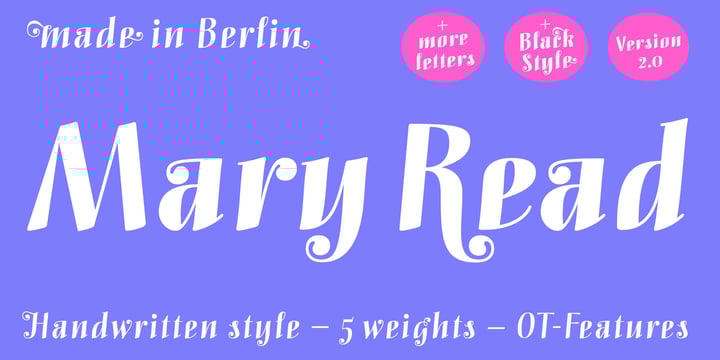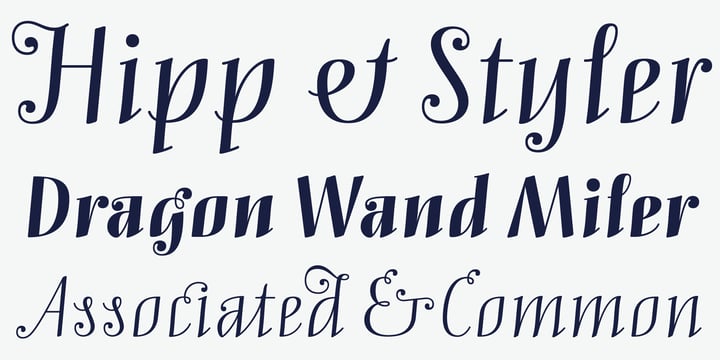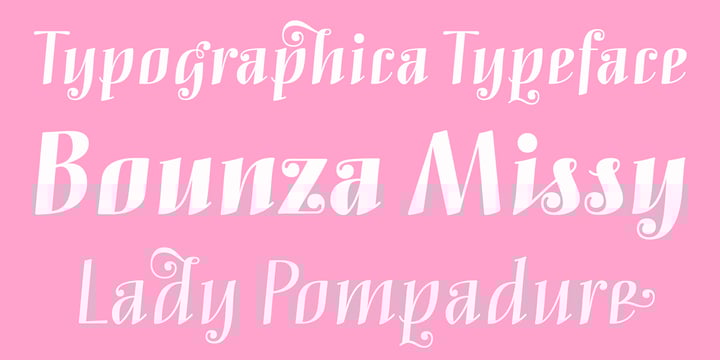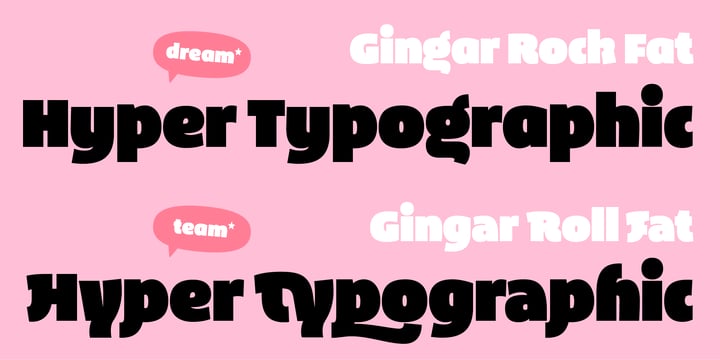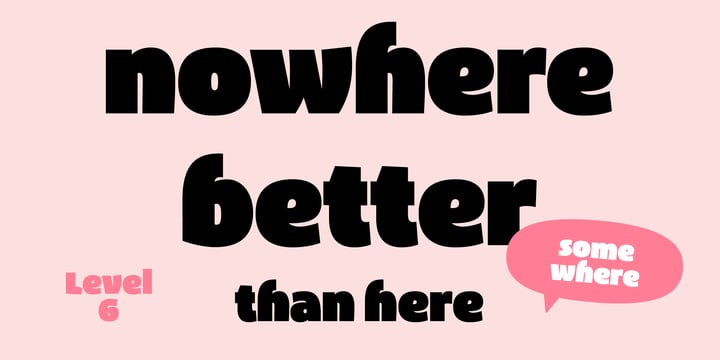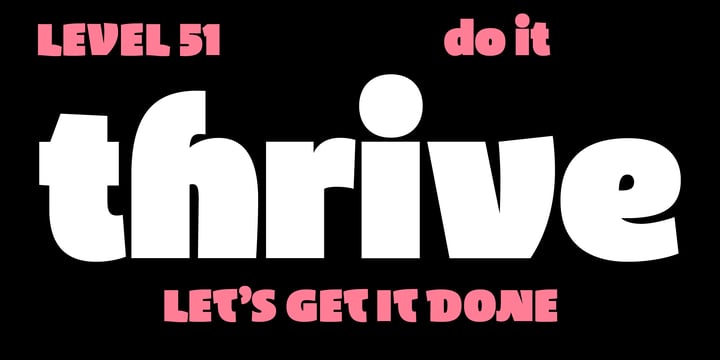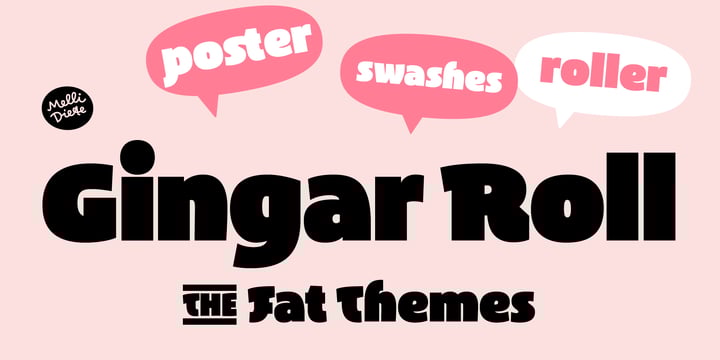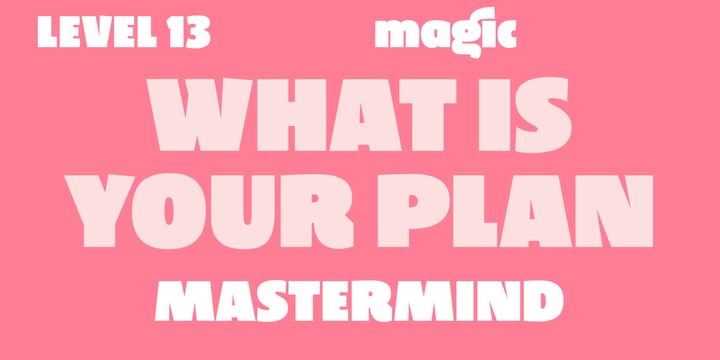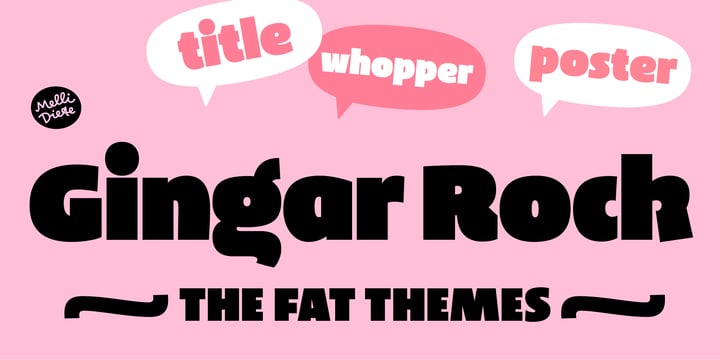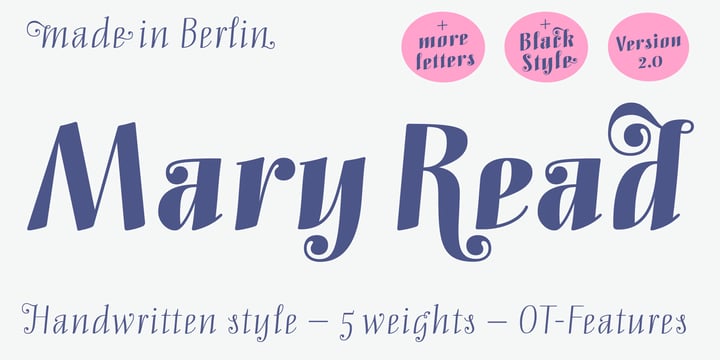
Melli Diete
Melli Diete runs a Berlin Type Foundry with - somehow - energetic fonts.
Her letters are unique, full of character and made for creative experience
in harmony and sympathy.
When designing, Melli has a creative attitude in mind. Kind of, she wants to
organize a little bit of breaking free from traditional punchcutting. Of course
she does so with the knowledge of the history of letterforms, having studied
type design passionately. It’s more about to influence one’s own creativity,
to let the chi flow in a typographic background, that is involved.
Readability is a must, as well as smileys included.
Be surprised, letters of love!